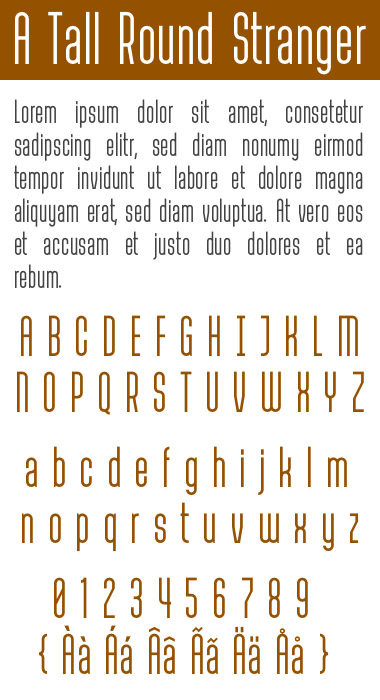
A Tall Round Stranger
Dominik Kaisers (phate888)
A well balanced, simple, tall and regular shapes. The sample shows beautiful harmony. 10/10
This stranger looks strangely familiar. I'm sure we're going to make great friends. 10/10
love it look very pro
bravo! 10
Beautifully proportioned and well worth a 10.